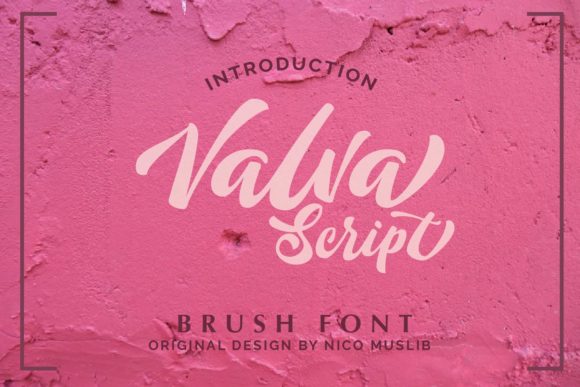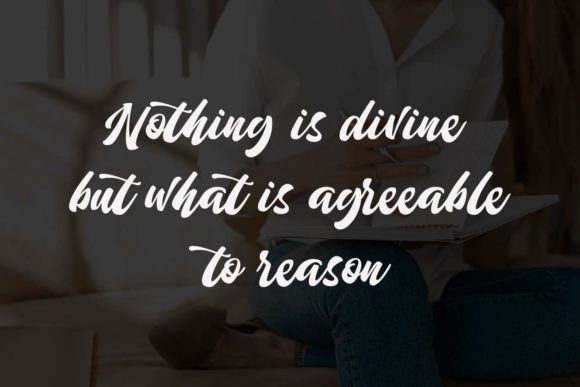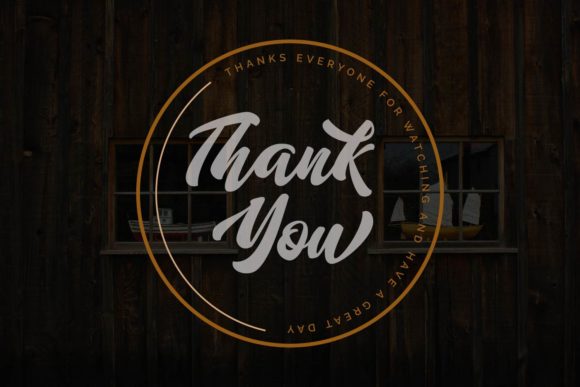
About Valva Font
Valva is a charming and elegant script font. Use this font for your designs and explore its endless possibilities and create superb designs!